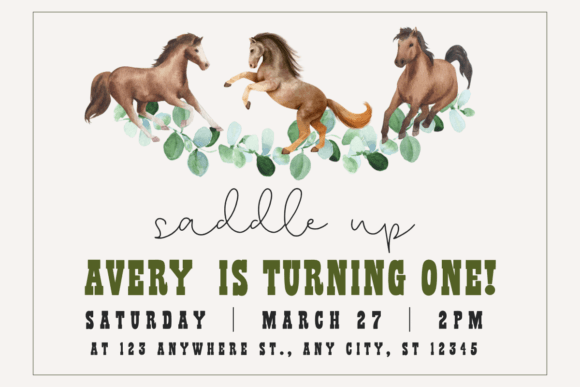
Cowboy Boots Font
Cowboy Boots is a bold and stylish western font that looks like the old West. It’s perfect for adding a cowboy feel to your designs, with big, clear letters that make your words stand out. Whether for posters, signs, or fun projects, this font gives a touch of the Wild West to everything you create.